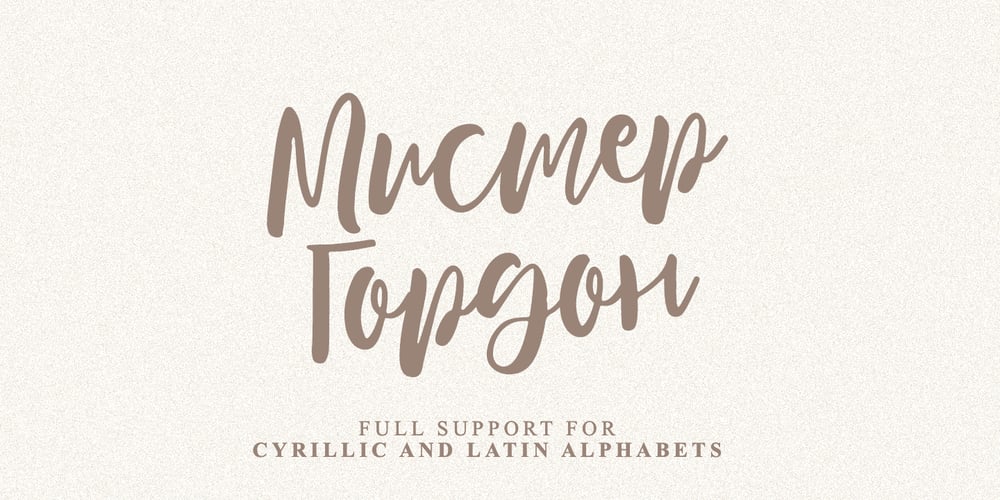
Mister Gordon Font Family was designed by Dmitrii Chirkov and published by Supfonts. Mister Gordon contains 1 styles and family package options. Mister Gordon is a classic calligraphy font. The font supports both Cyrillic and Latin alphabets. You can write an attractive invitation or issue menu.Шрифт поддерживает как кириллическую так и латинскую раскладку. Вы можете писать привлекательные приглашения или оформлять меню. Классическое начертание идеально впишется в любой проект :)Test it out below to see how it could look for your next project!Includes: Regular Script Latin languages support Cyrillic languages support Uppercase and lowercase Numbers and punctuation Ligatures Check out my blog: https://www.instagram.com/zloillev pinterest.com/dmitriychirkov7 Enjoy